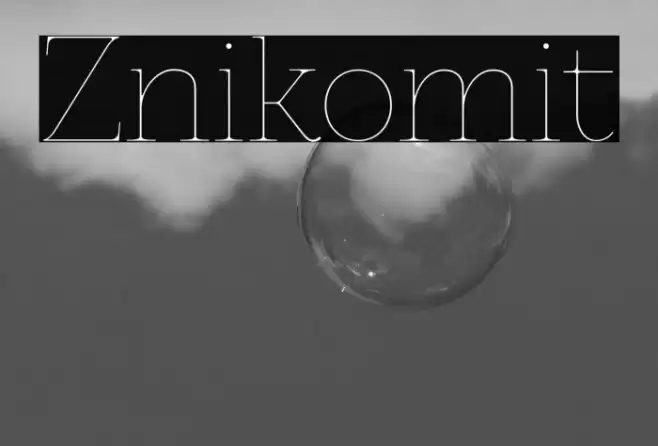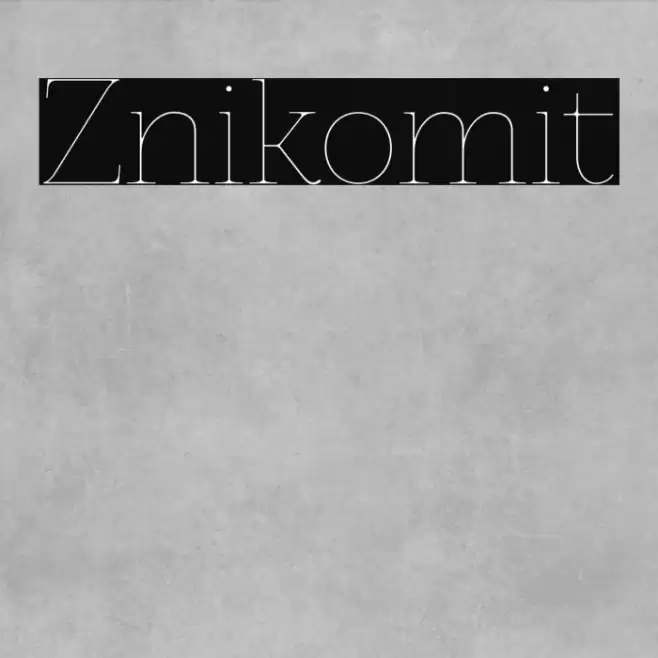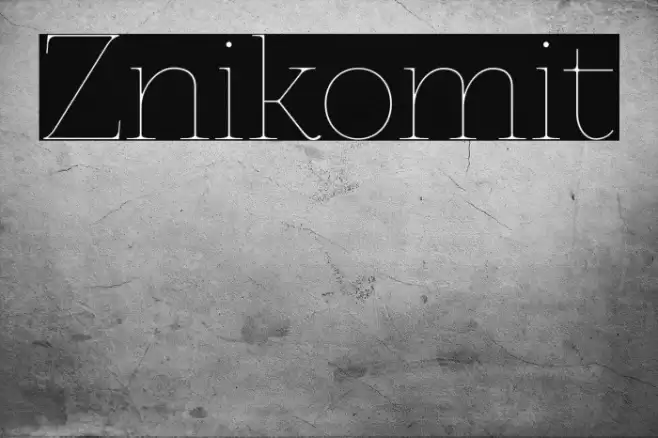
Znikomit Font
Znikomit Description
This font features a delicate and refined design with thin, elegant strokes that convey a sense of sophistication and modernity. The characters are crafted with a high level of precision, showcasing a minimalist aesthetic that is both stylish and versatile. The uppercase letters are tall and slender, while the lowercase letters maintain a consistent flow with subtle curves. The numerals are clean and straightforward, complementing the overall sleek appearance. Special characters are thoughtfully integrated, maintaining the font's cohesive look. This font is ideal for projects that require a touch of elegance and clarity.
A thin, elegant font with a modern and minimalist design from Uncategorized fonts.